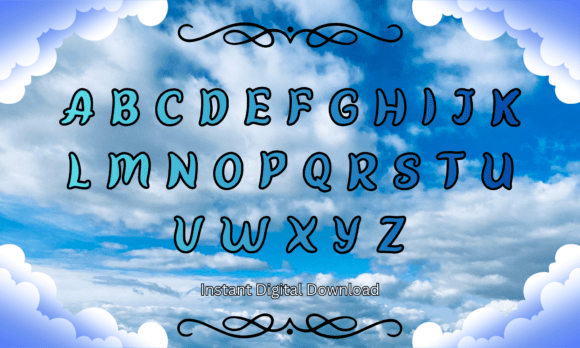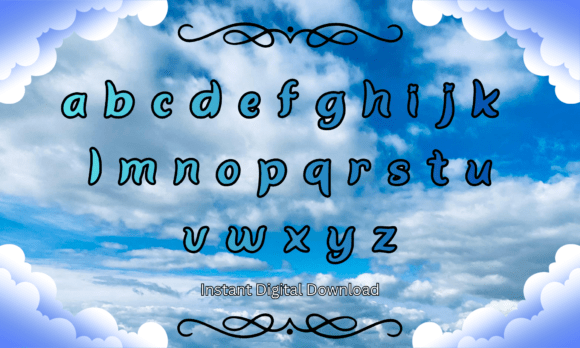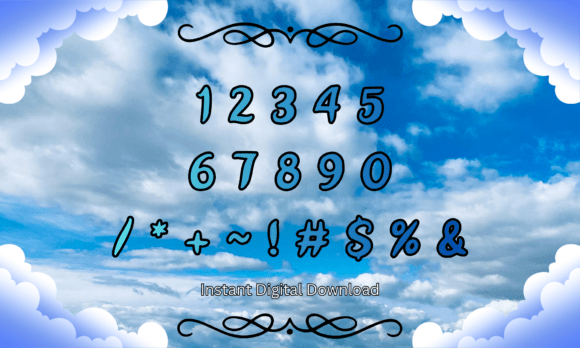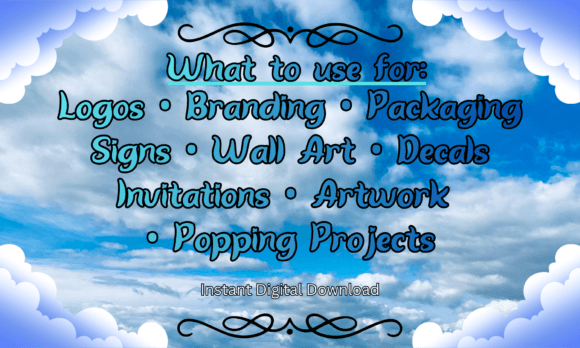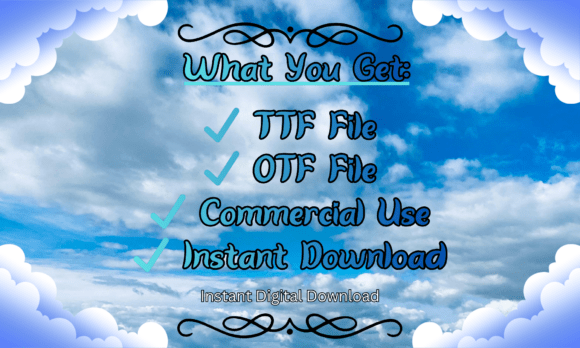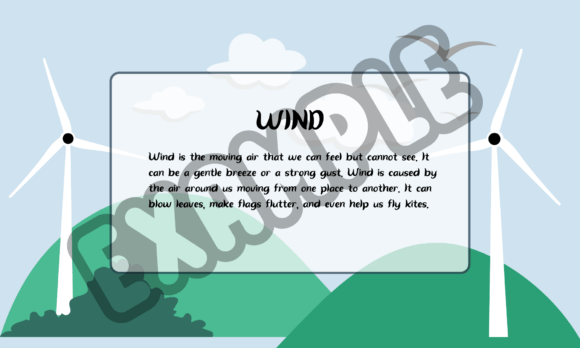
Breezy Font: Elevate Your Designs with a Soft and Playful Touch
Are you looking for a font that can bring a light and airy feel to your designs? Look no further than Breezy, a soft and playful display font that captures the essence of clouds, blue skies, and peaceful vibes. ☁️💙 Inspired by the serenity of nature, Breezy is perfect for designers and crafters who want to add a calm, dreamy touch to their aesthetic branding, stickers, and creative projects.
The Inspiration Behind Breezy Font
Breezy font is inspired by the beauty of nature, specifically the softness of clouds and the tranquility of blue skies. The font’s creator aimed to capture the feeling of a gentle breeze on a summer day, which is reflected in the font’s light and airy appearance. With Breezy, you can bring a sense of serenity and peacefulness to your designs, making it perfect for projects that require a soothing and calming atmosphere.
Key Features of Breezy Font
Breezy font boasts several key features that make it an excellent choice for designers and crafters:
- Soft and Playful: Breezy font has a soft and playful appearance, making it perfect for designs that require a light and airy feel.
- Display Font: Breezy is a display font, designed to make a statement in your designs. Its unique and elegant appearance makes it perfect for headings, titles, and other display purposes.
- Cloud-Inspired: The font’s inspiration from clouds and blue skies gives it a unique and airy feel, making it perfect for designs that require a sense of freedom and lightness.
- Peaceful Vibes: Breezy font is designed to evoke peaceful vibes, making it perfect for designs that require a calming and soothing atmosphere.
Perfect for Aesthetic Branding and Creative Projects
Breezy font is perfect for aesthetic branding, stickers, and creative projects. Its soft and playful appearance makes it an excellent choice for:
- Logos and Branding: Breezy font can add a touch of elegance and sophistication to your logo and branding designs.
- Stickers and Labels: The font’s playful and airy appearance makes it perfect for stickers and labels that require a fun and eye-catching design.
- Creative Projects: Breezy font can be used in a variety of creative projects, such as posters, flyers, and brochures, to add a touch of whimsy and playfulness.
How to Use Breezy Font in Your Designs
Using Breezy font in your designs is easy. Here are a few tips to get you started:
- Pair with Other Fonts: Breezy font can be paired with other fonts to create a unique and visually appealing design.
- Experiment with Colors: The font’s soft and playful appearance makes it perfect for designs that feature pastel colors and soft gradients.
- Use for Headings and Titles: Breezy font is perfect for headings and titles, where its elegant and airy appearance can make a statement.
Breezy font is a soft and playful display font that can bring a light and airy feel to your designs. Inspired by clouds, blue skies, and peaceful vibes, Breezy is perfect for aesthetic branding, stickers, and creative projects. With its unique and elegant appearance, Breezy font is sure to add a calm, dreamy touch to any design. ☁️💙